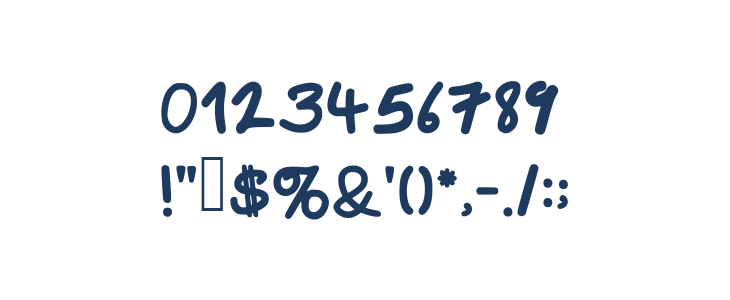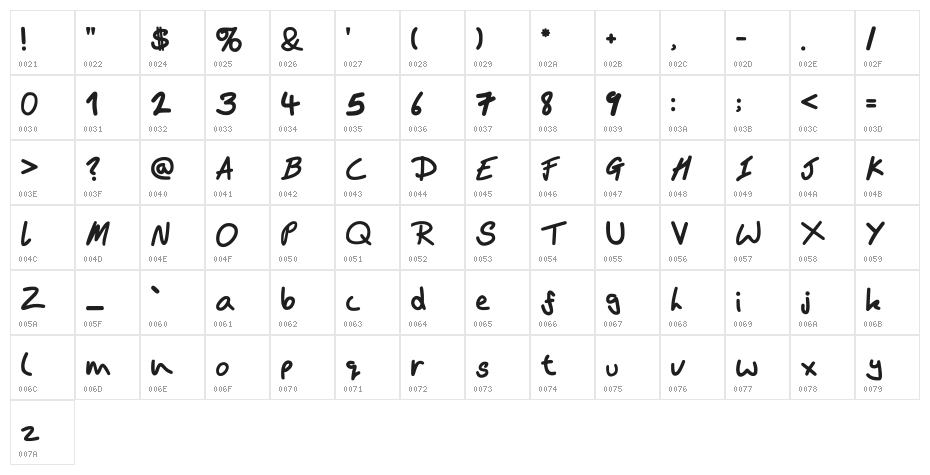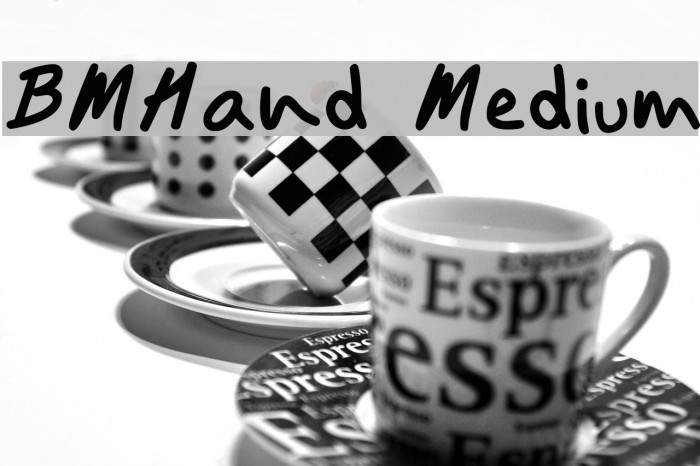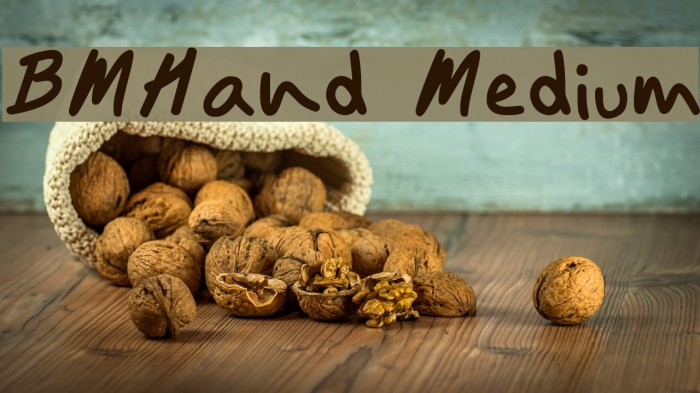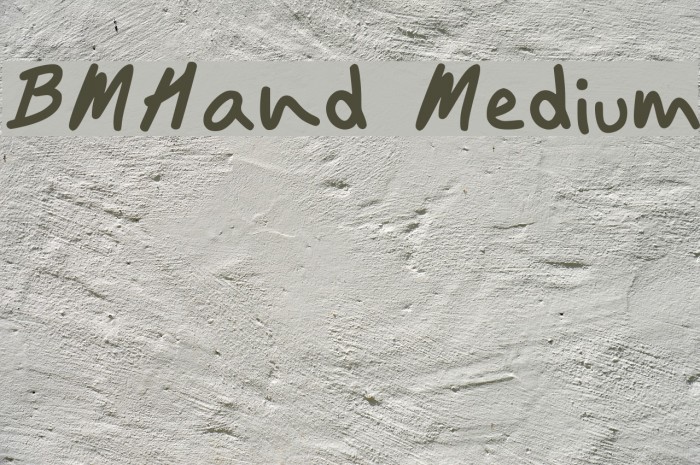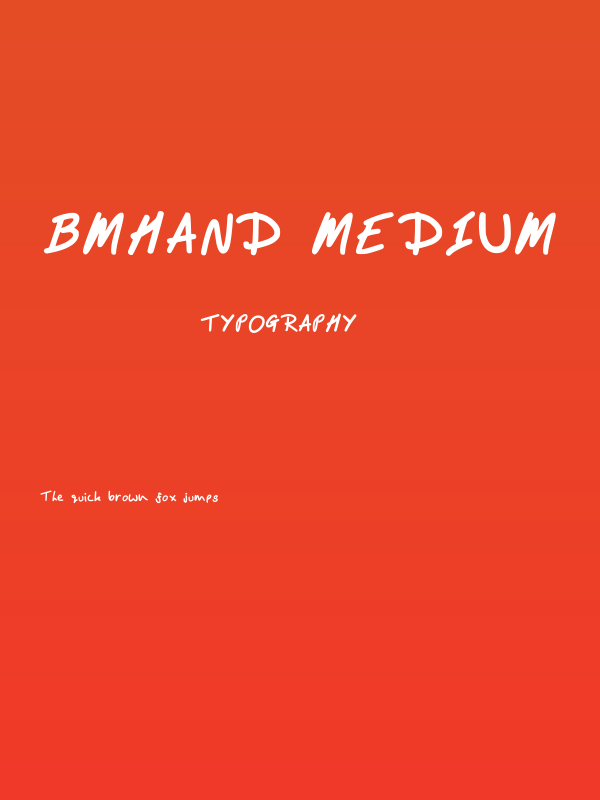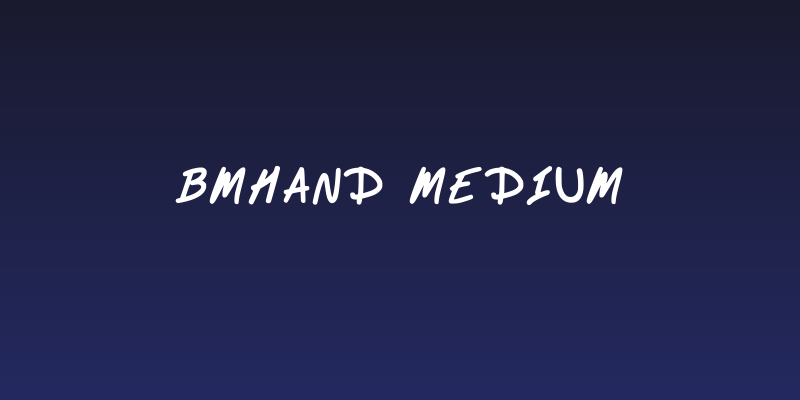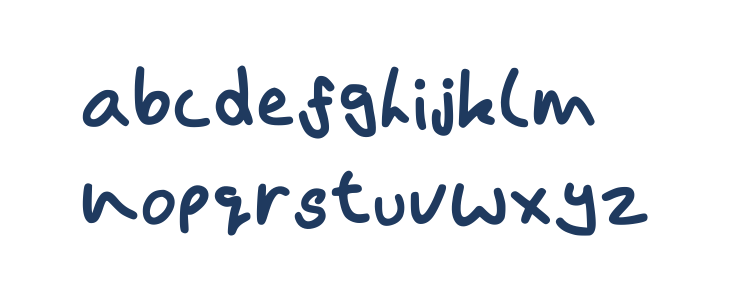
BMHand Medium Font
BMHand Medium Description
This font exhibits a playful and casual handwritten style, characterized by its smooth, flowing curves and slightly irregular letterforms. The uppercase letters are bold and confident, while the lowercase letters maintain a consistent rhythm, enhancing readability. Numbers and special characters follow the same lively aesthetic, making the font versatile for various applications. The strokes are moderately thick, providing a medium contrast that ensures visibility without overwhelming the design. Its informal nature makes it suitable for creative projects that require a personal touch.